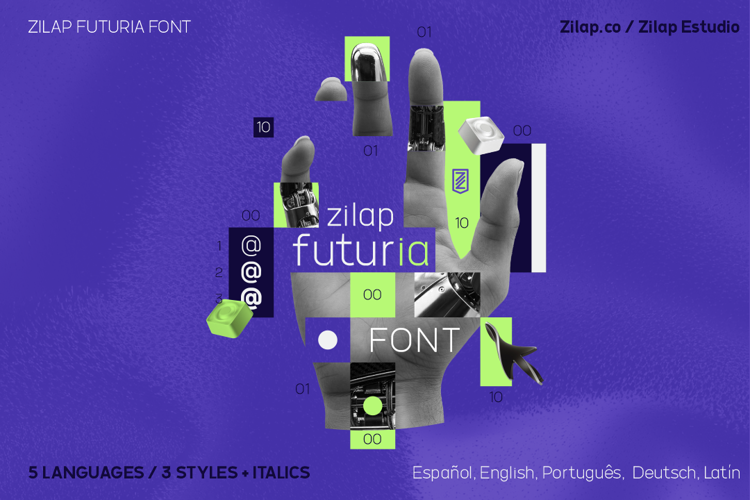
Zilap Futuria Font
It is at the forefront of typography: a geometric-humanist sans serif meticulously designed for perfect balance. Its architecture combines the sharp precision of clear proportions and straight terminals with the genuine fluidity of smooth curves, offering a modern, versatile style with soul.
Designed to master technological language, it guarantees optimal readability in any size or format.
Zilap Futuria is the definitive choice for digital projects that demand visual excellence and a touch of human warmth.
Design and concept by Zilap Estudio.
Assembly and casting by LJ Design Studios.